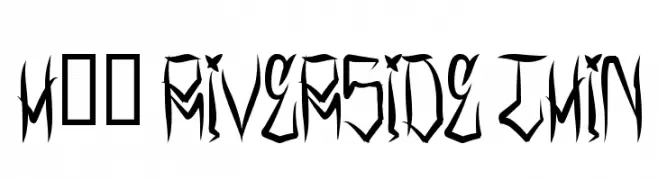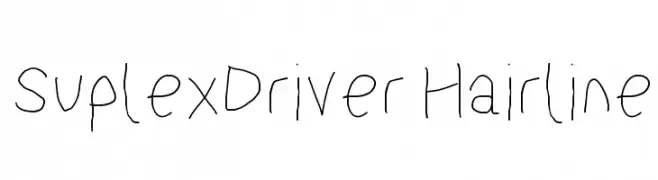
( Fonts by www.legacyofdefeat.com )
An edgy, gothic-inspired font with sharp, angular lines and dramatic style.
( Fonts by www.legacyofdefeat.com )
A bold, edgy font with sharp, angular lines and a gothic influence.
( Fonts by Cannot Into Space Fonts )
A bold, oblique, and handwritten-style font with a dynamic and energetic appearance.
( Fonts by Cannot Into Space Fonts )
A playful, outlined font with a hand-drawn, oblique style.
( Fonts by Cannot Into Space Fonts )
A bold, playful handwritten font with thick, rounded strokes.
( Fonts by Cannot Into Space Fonts )
A bold, oblique handwritten font with a dynamic and playful style.
( Fonts by Cannot Into Space Fonts )
A delicate, hand-drawn oblique font with a casual yet sophisticated style.
( Fonts by Cannot Into Space Fonts )
A playful, handwritten font with thin, hairline strokes and a casual, informal style.
( Fonts by Cannot Into Space Fonts )
A playful, handwritten font with a casual and organic style.
( Fonts by Cannot Into Space Fonts )
A bold, playful handwritten font with rounded, irregular characters.